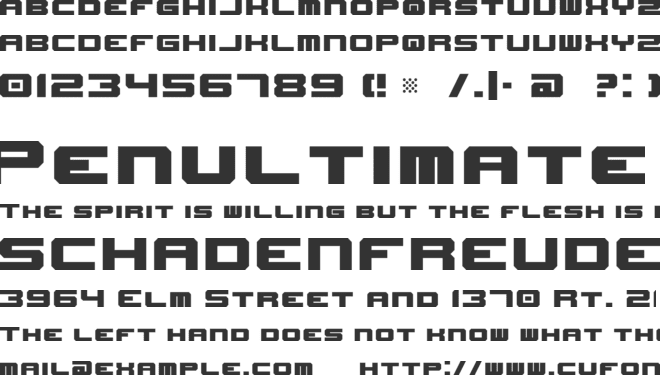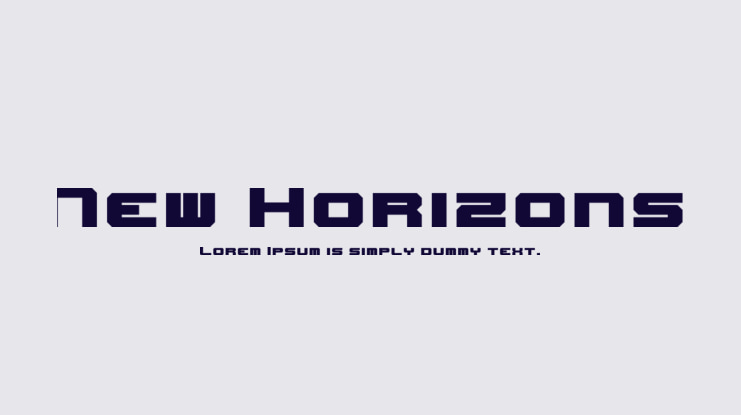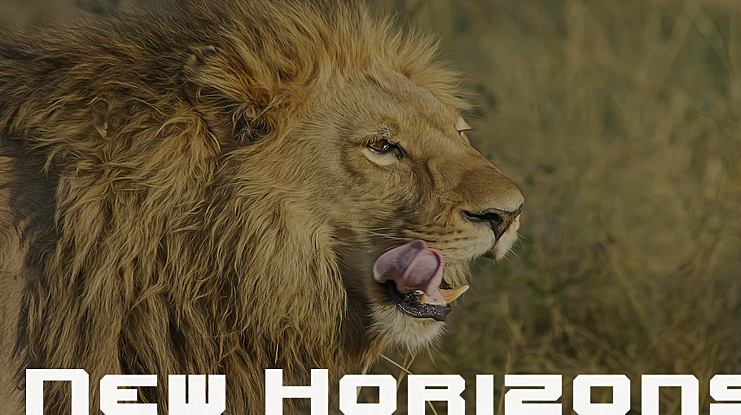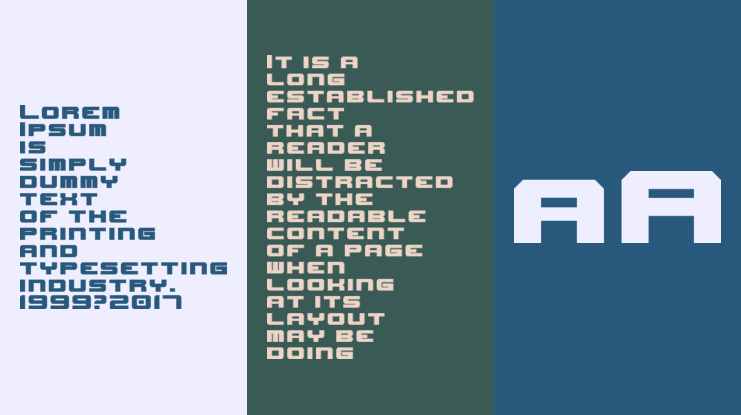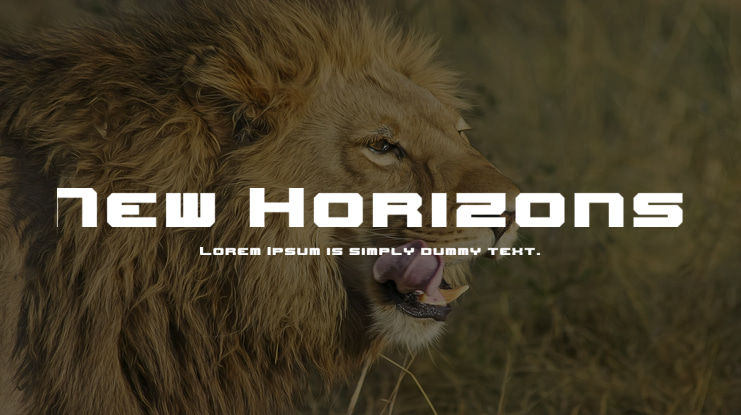
New Horizons Font
Still pretty much a work in progress font, but already quite usable, so I went
ahead and decided to release it. More characters coming soon.
This font was made for making titles for my website and my pictures, so it has
certain specific optimizations. When used on-screen it will look the best with
font sizes starting with 15 and then any next 15. That is 15, 30, 45, 60, etc.